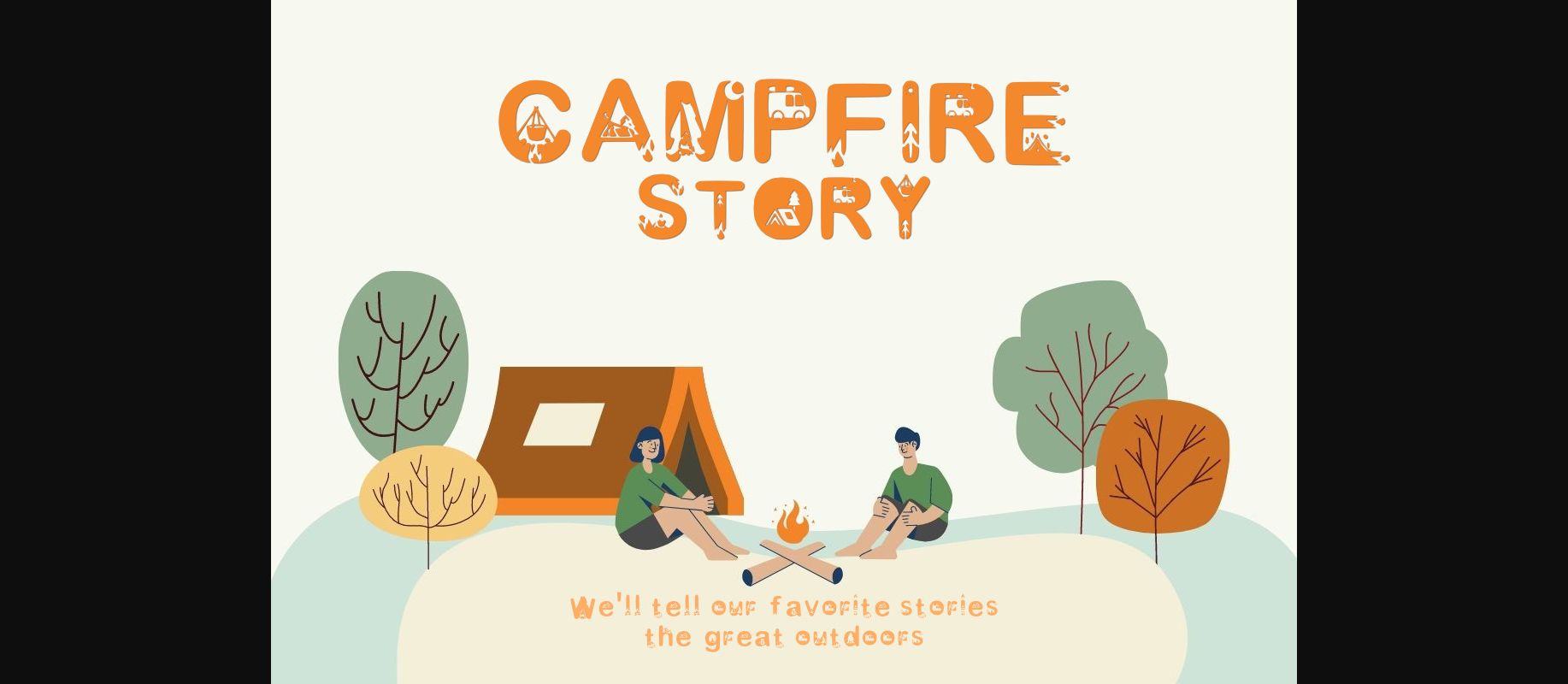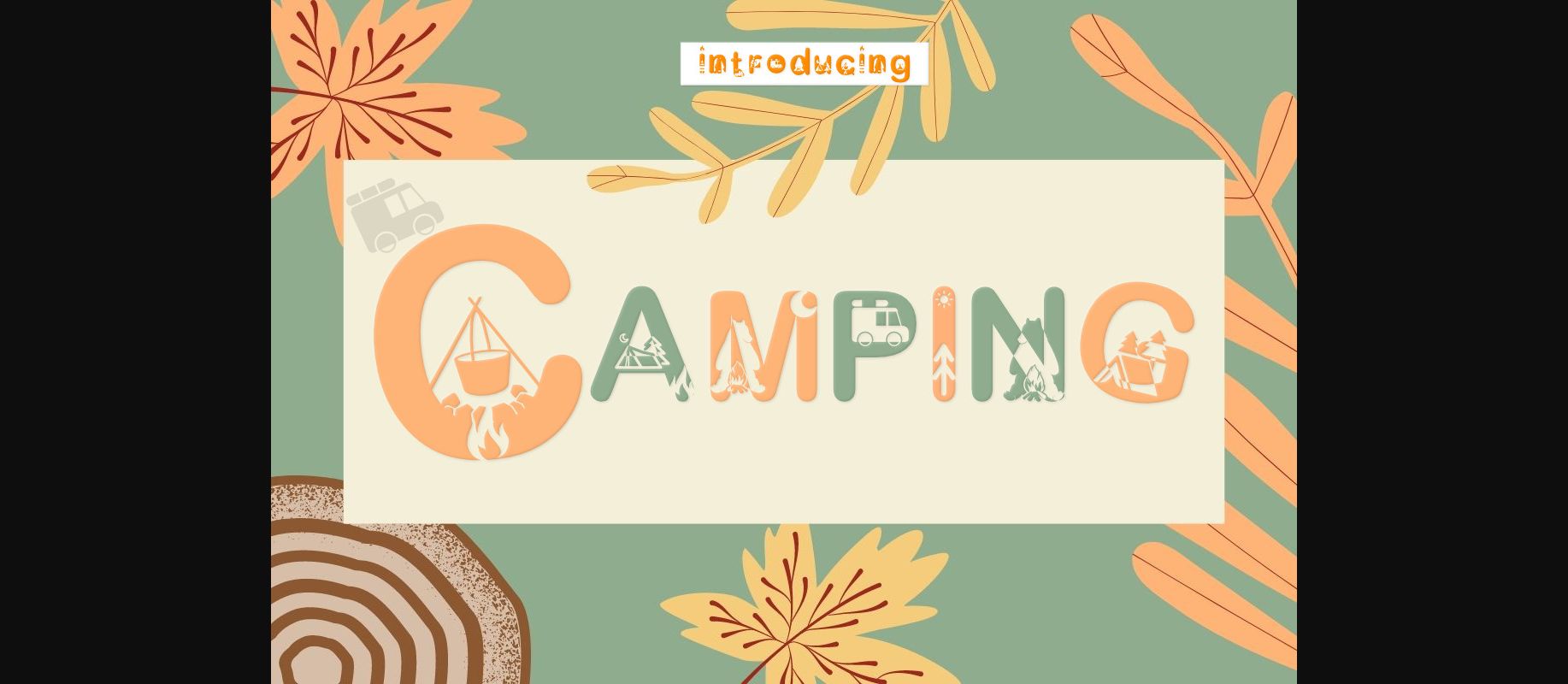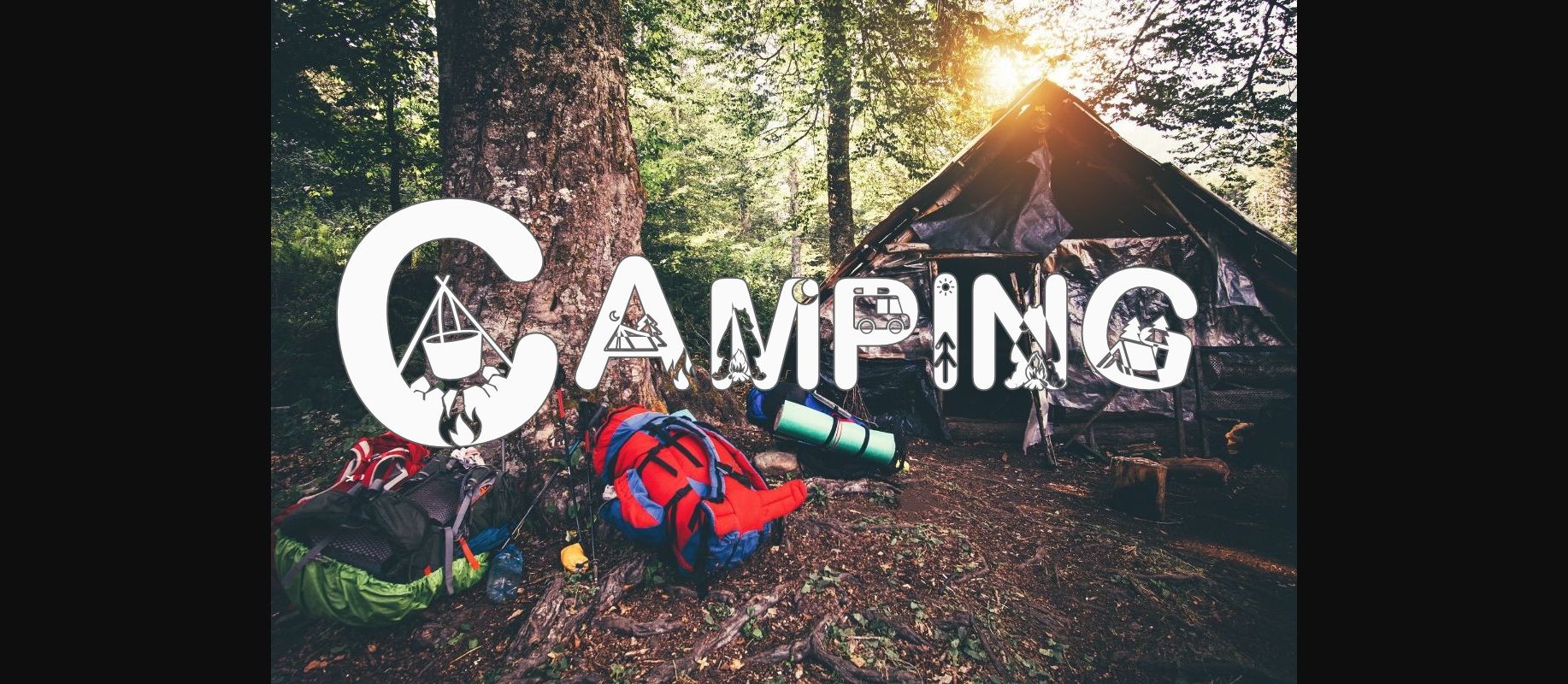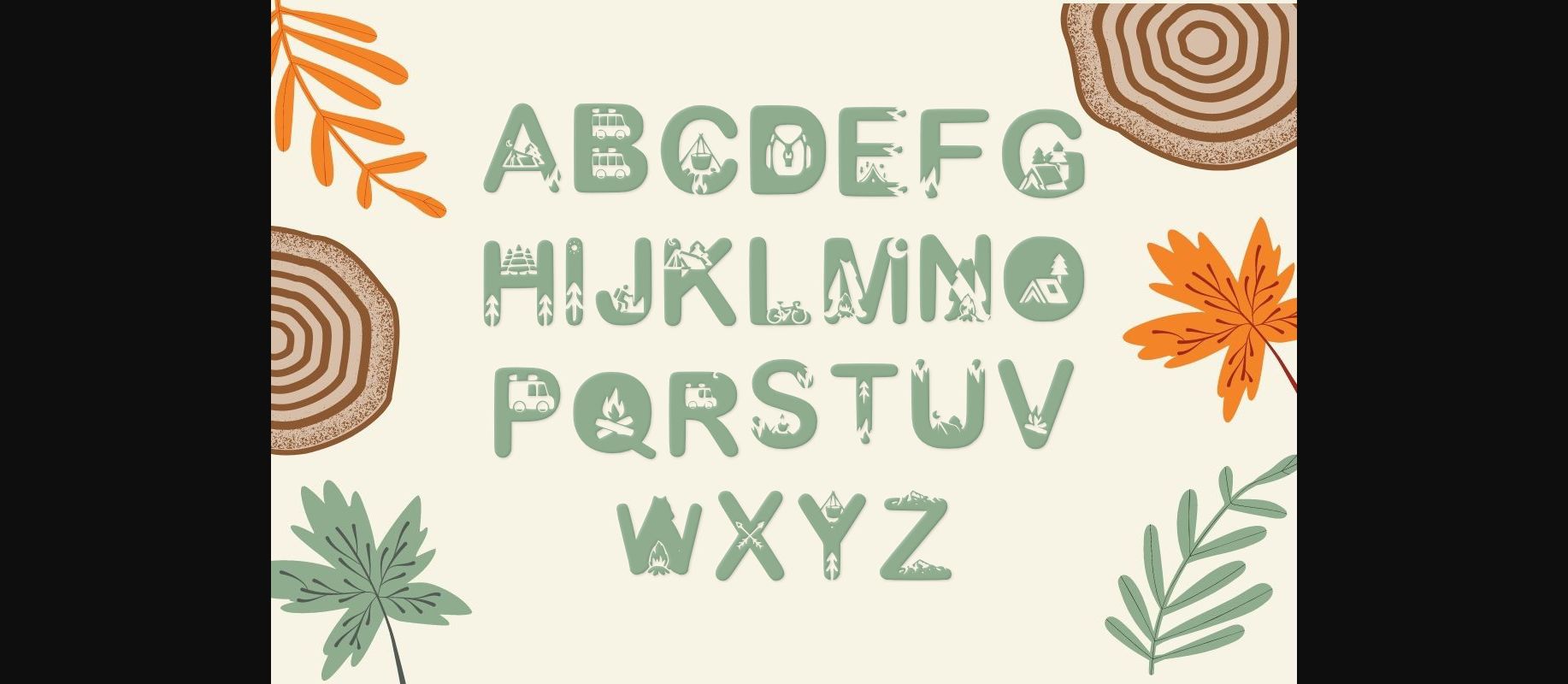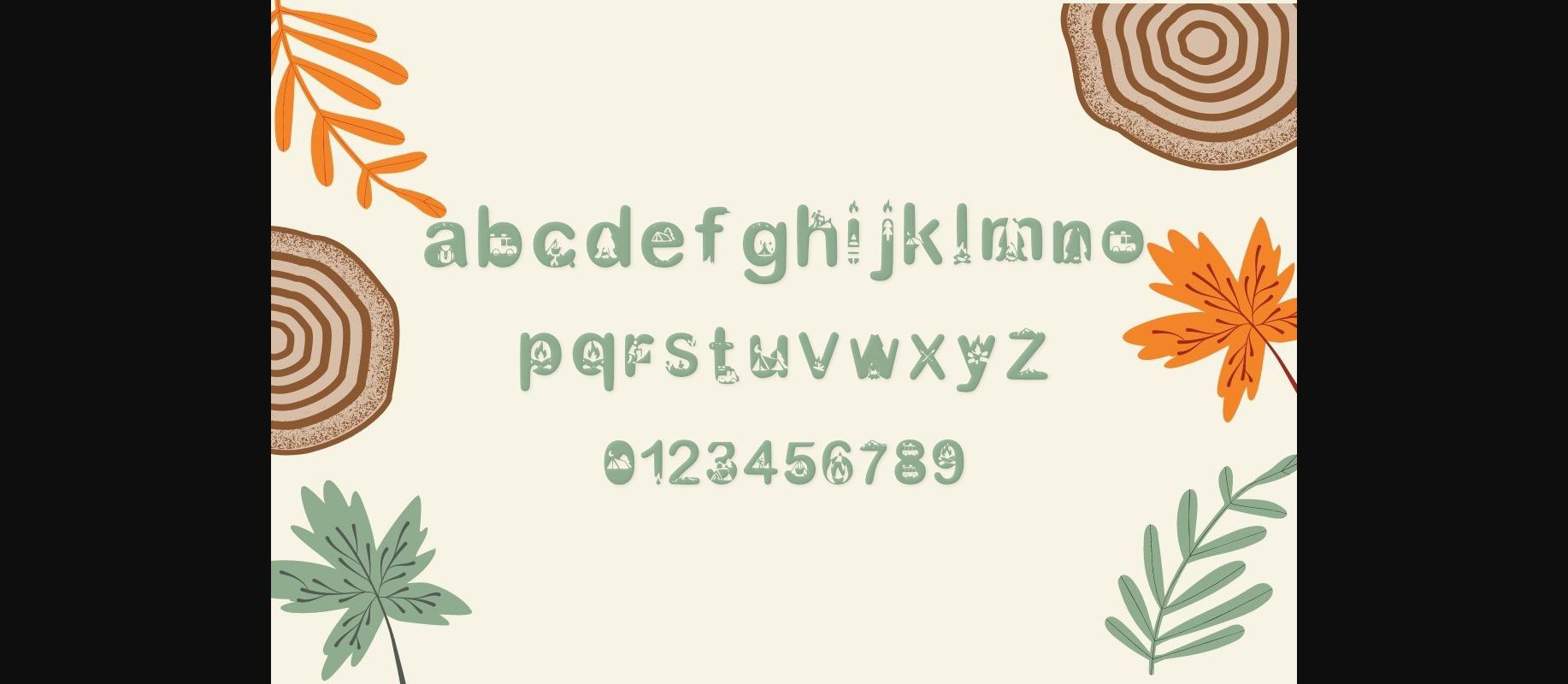
Camping Font
About Camping Font
Camping is a cool, incredibly cute, and bubbly decorative font. Add to each of your party invitations, gathering, or pretty much any design that requires a touch of youth and joy.